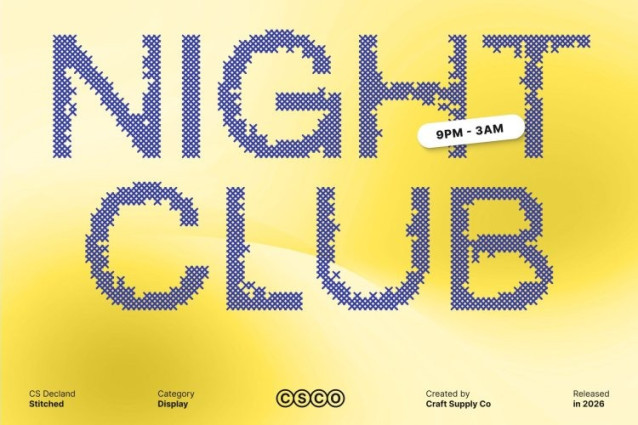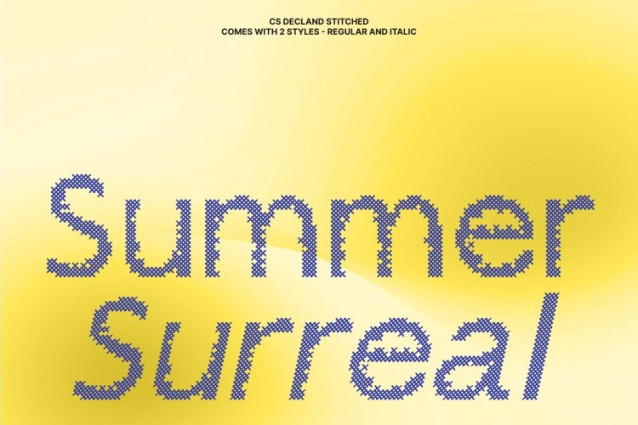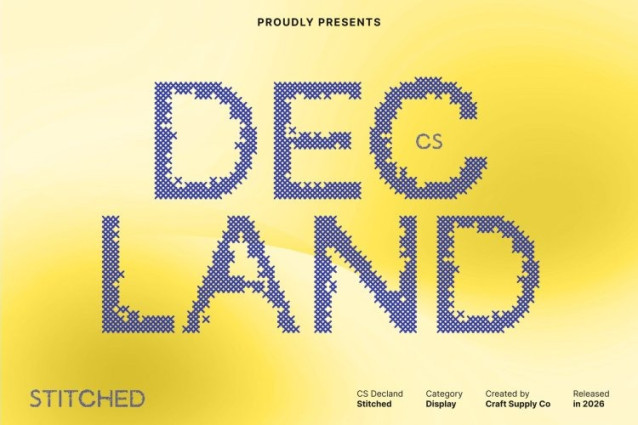
CS Decland Stitched Font
CS Decland Stitched Font – This is a psychedelic display font defined by curved, swirling, and playfully distorted letterforms. The stitched texture adds a handcrafted dimension that enhances its artistic character, creating typography that feels expressive, energetic, and unmistakably bold. Every letter is designed to capture attention and spark curiosity.
Dynamic Energy and Playful Expression
This font radiates movement and rhythm through its flowing shapes and lively visual structure. Its psychedelic influence brings a sense of adventure and fun, transforming text into a visual centerpiece that instantly stands out in any composition.
Handcrafted Texture with Psychedelic Flair
The stitched effect introduces a tactile, crafted finish that balances the vibrant psychedelic style with warmth and personality. This unique combination gives the font depth and individuality, making it perfect for projects that value originality and artistic expression.
Perfect for Creative and Expressive Projects
Ideal for music posters, event branding, festival visuals, merchandise, and experimental graphics, this font turns typography into an energetic visual experience. It’s the perfect choice for designs that celebrate creativity, freedom, and bold visual storytelling.